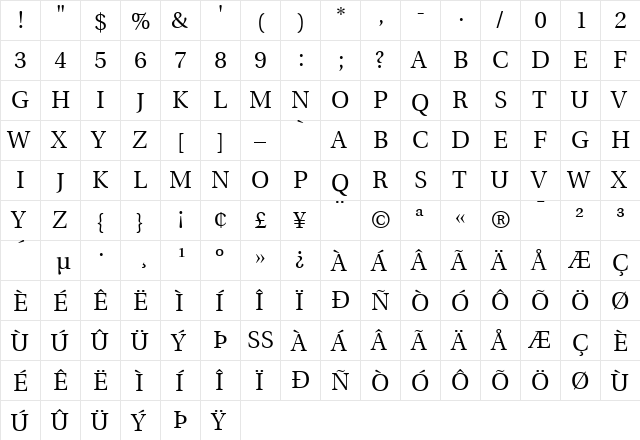
UtopiaTitlingCapitals Roman
Design Context for UtopiaTitlingCapitals Typeface
UtopiaTitlingCapitals takes a measured approach to typography — its balanced proportions and neutral character make it a reliable workhorse for both digital and print work.
Pro Tip: Use UtopiaTitlingCapitals in both headline and body roles to test its range before committing to a single application.